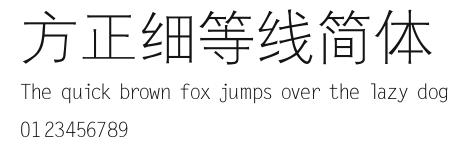
• Font Name: 方正细等线简体
• Full Font Name: 方正细等线简体
方正细等线简体.ttf is a modern, elegant sans-serif font designed for ultimate readability and visual harmony. Perfect for branding, headlines, web design, and print materials.